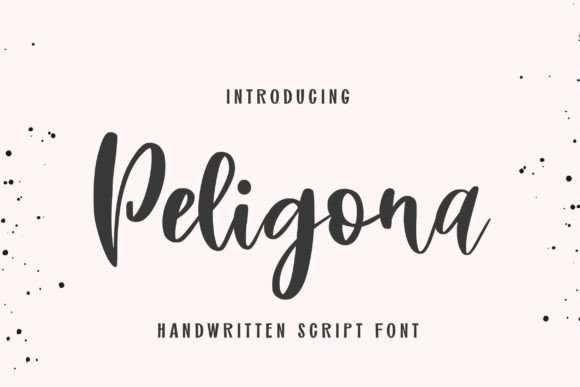
Introducing Peligona script font: elegant, intricate, and one-of-a-kind. Each letter boasts a fluid, hand-drawn style, featuring delicate curves and sharp, pointed ends that dance across the page. This font is perfect for adding a touch of sophistication and personality to any design project.